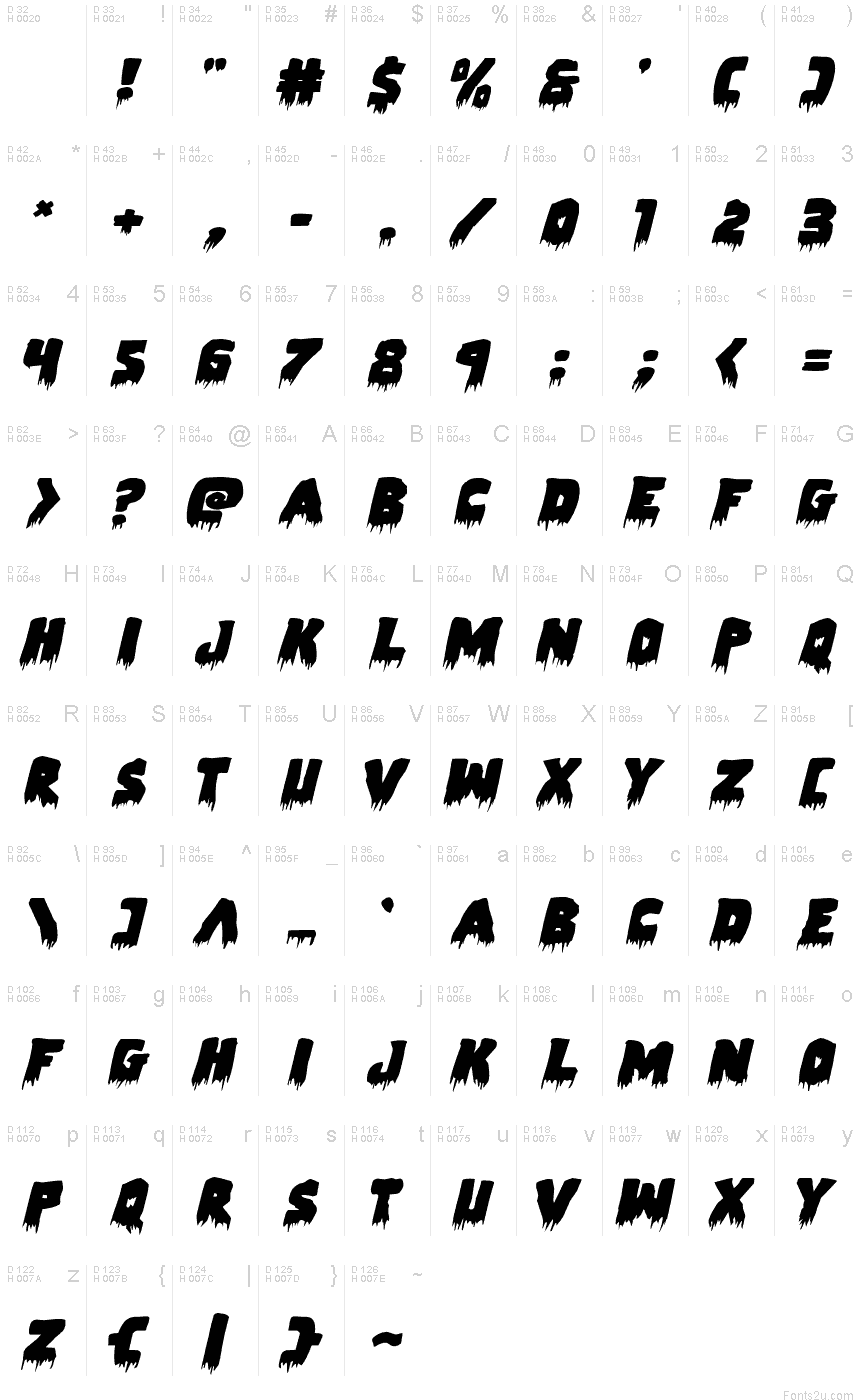
Zombie Control Expnaded Italic, created by Iconian Fonts in 2012, is a free scary display font with broad, forward-leaning capitals. Its solid, packed shapes are cut by ragged lower edges that resemble torn cloth or rising flames. Uneven outlines and abrupt notches keep the lettering raw and restless.
For horror entertainment and youth merchandise alike, the aggressive silhouette suits haunted attraction posters, game title screens, and T-shirt graphics because it reads like part of the artwork. The same torn-edge motif can turn comic cover lines and Halloween event programs into an extension of their monster imagery.
Zombie Control Expnaded Italic